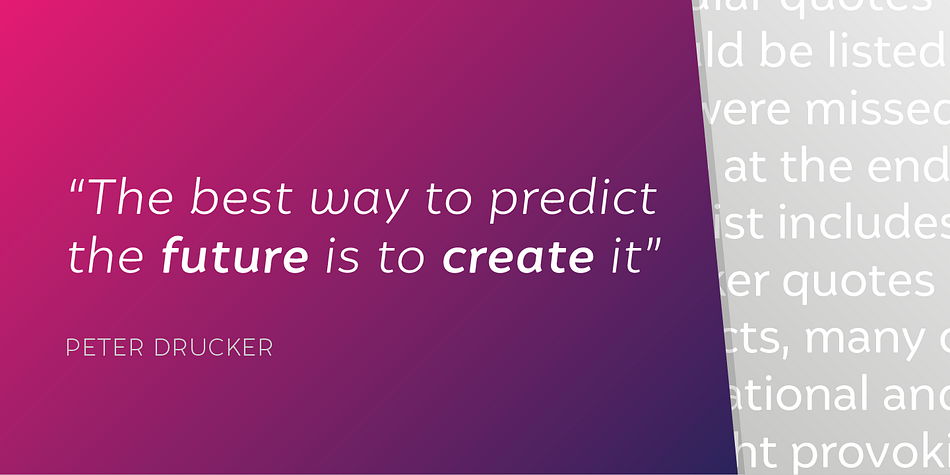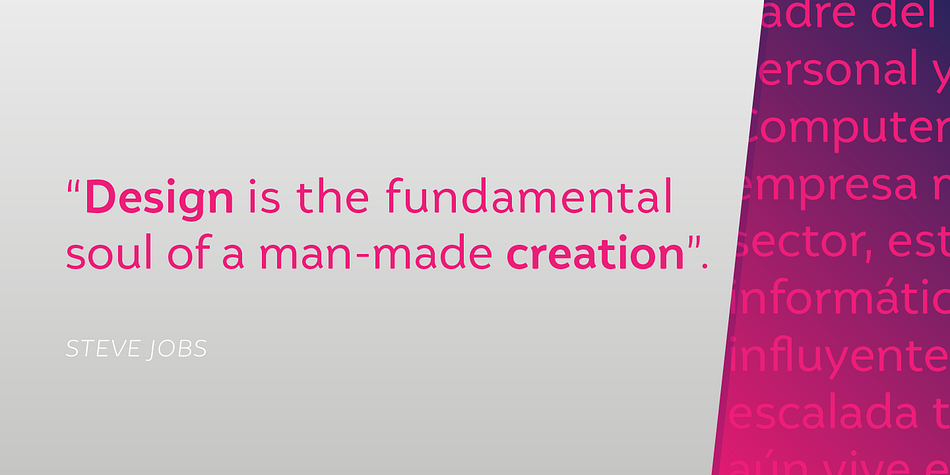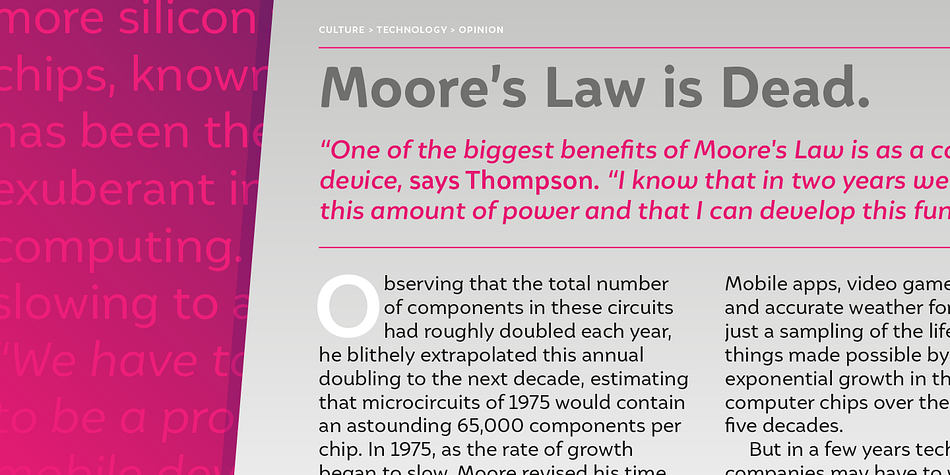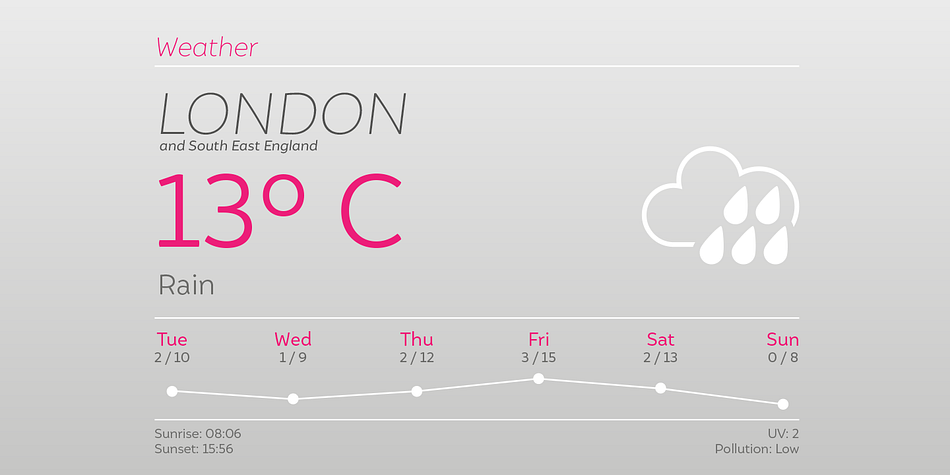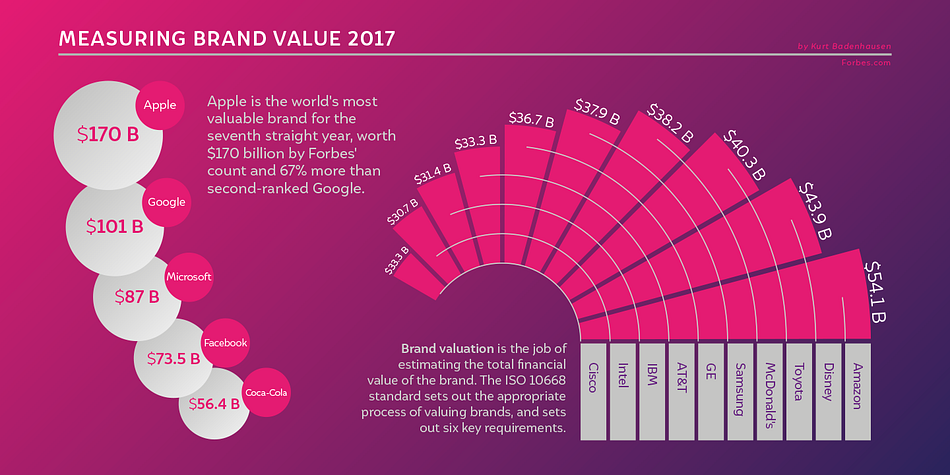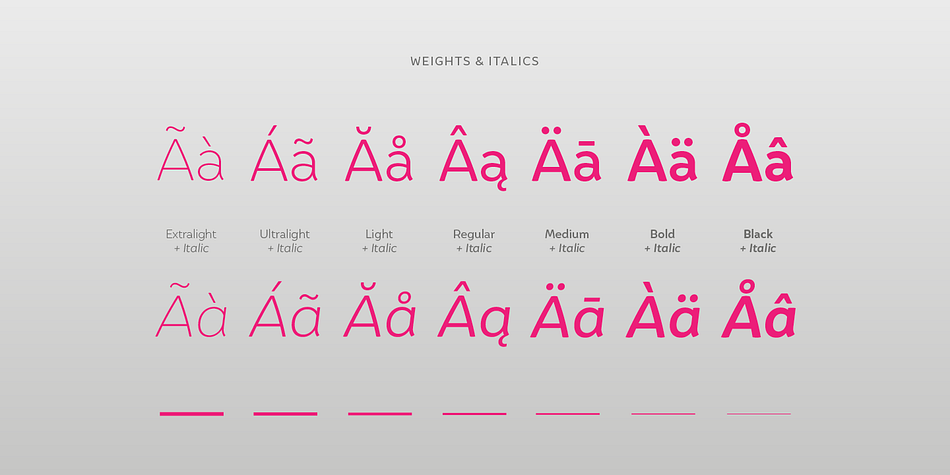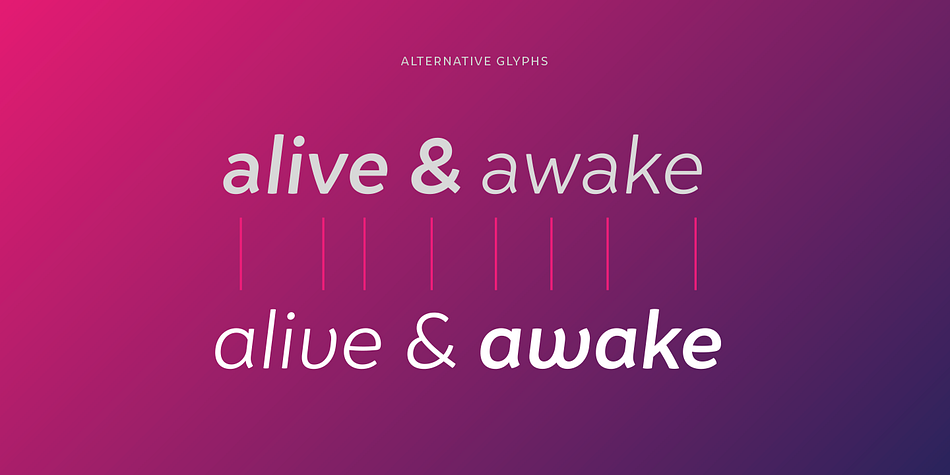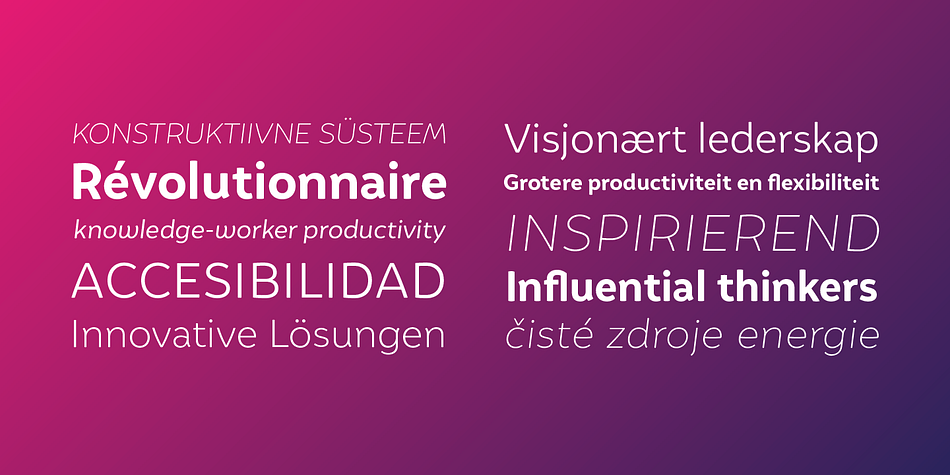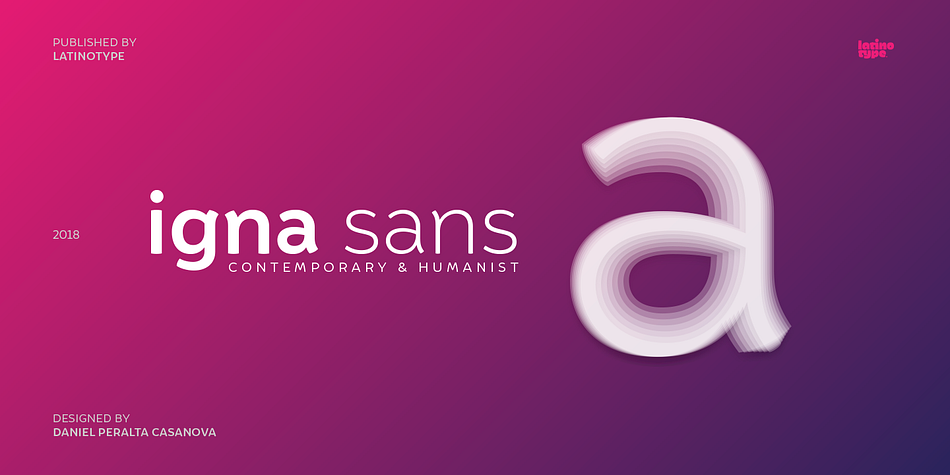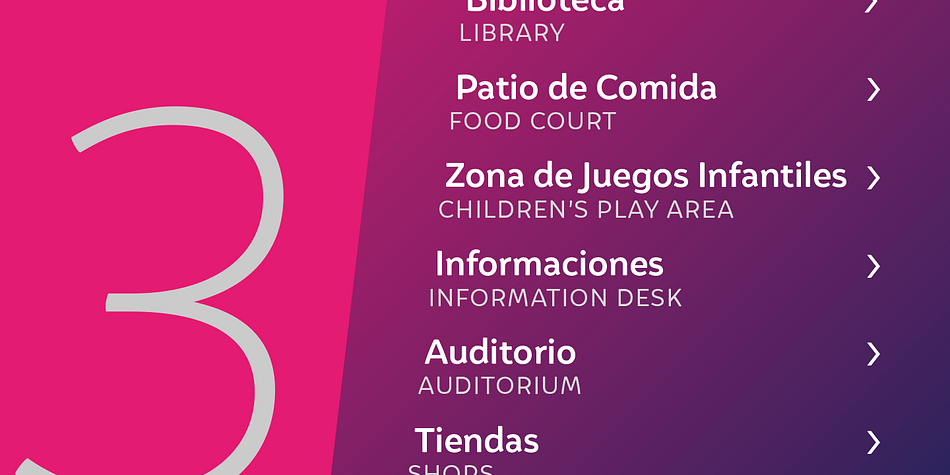
Designed by Daniel Peralta, Igna Sans is a sans serif font family. This typeface has fourteen styles and was published by Latinotype.
Igna Sans is a humanist functional typeface, with a contemporary style, designed to be used in a wide variety of applications such as advertising, corporate projects, branding and retail product design. The font is highly legible when used in a large body of text and well-suited for headings, display use and short text.
Its angled strokes and rounded forms give it a smooth feel and make it look friendly and expressive.
The Igna Sans family comes in 7 weights, ranging from Extra Light to Black, with matching italics plus alternative glyphs. The font contains a 430-character set that supports 206 different languages.